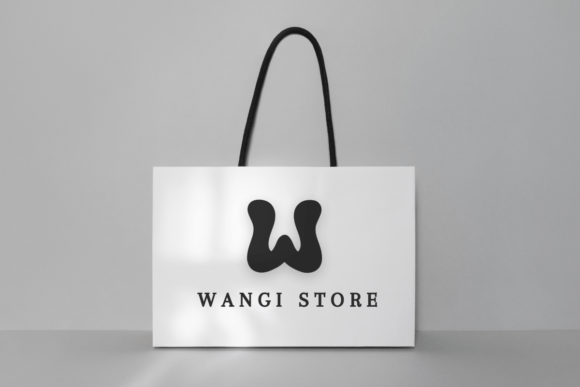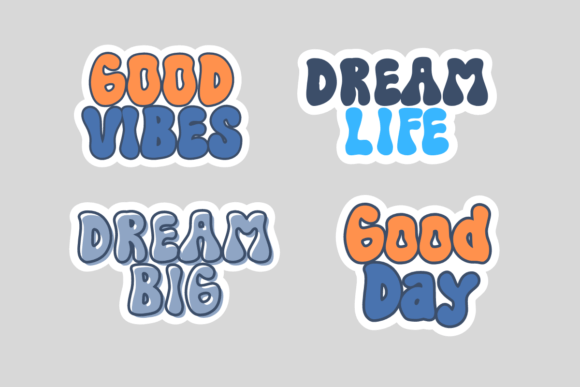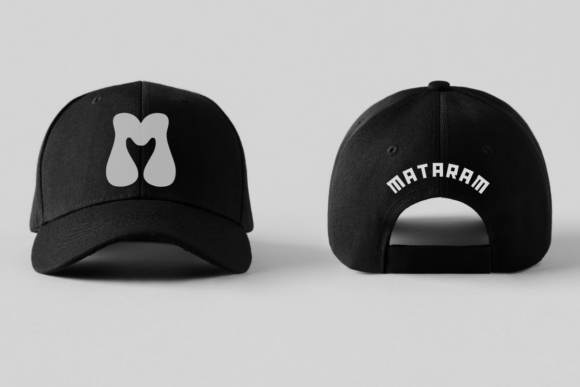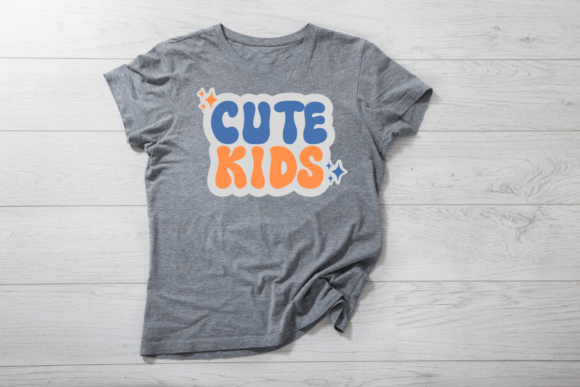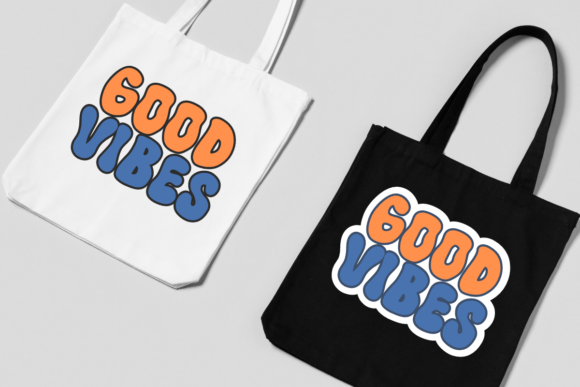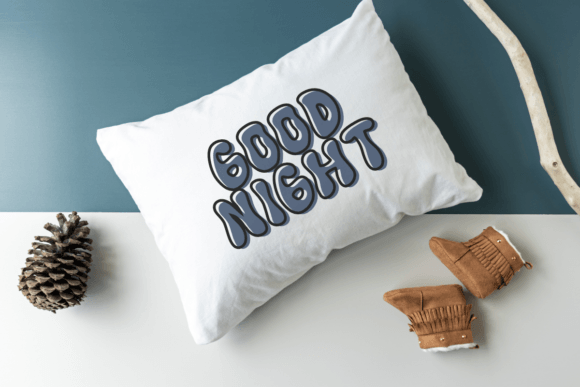
Discover the Charm of Crossock Font: A Retro Vintage Aesthetic for Your Creative Projects
Are you a designer or crafter looking for a font that can add a touch of nostalgia and retro vintage charm to your creative projects? Look no further than Crossock Font. This expertly designed font is sure to become a true favorite, delivering a great retro vintage aesthetic that’s perfect for a wide range of applications.
The Story Behind Crossock Font
Crossock Font is a carefully crafted font that’s designed to evoke the feeling of a bygone era. Its unique design elements and classic style make it the perfect choice for anyone looking to add a touch of nostalgia to their work. Whether you’re creating a logo, branding materials, or craft projects, Crossock Font is the perfect choice.
What Makes Crossock Font So Special?
So, what sets Crossock Font apart from other fonts on the market? Here are just a few of the key features that make it so special:
- Retro Vintage Aesthetic: Crossock Font has a distinctive retro vintage aesthetic that’s perfect for anyone looking to add a touch of nostalgia to their work.
- Expertly Designed: This font has been carefully crafted to deliver a high level of quality and consistency, making it perfect for use in a wide range of applications.
- Highly Versatile: Crossock Font is highly versatile, making it perfect for use in logos, branding materials, craft projects, and more.
- Easy to Read: Despite its vintage aesthetic, Crossock Font is highly legible and easy to read, making it perfect for use in body text and other applications where readability is key.
How to Use Crossock Font in Your Creative Projects
Crossock Font is a highly versatile font that can be used in a wide range of creative projects. Here are just a few ideas to get you started:
- Logo Design: Use Crossock Font to create a logo that has a retro vintage aesthetic.
- Branding Materials: Use Crossock Font to create branding materials such as business cards, brochures, and flyers.
- Craft Projects: Use Crossock Font to add a touch of nostalgia to your craft projects, such as scrapbooking, card making, and more.
- Digital Projects: Use Crossock Font in digital projects such as social media graphics, blog posts, and more.
Tips for Getting the Most Out of Crossock Font
Here are a few tips for getting the most out of Crossock Font:
- Experiment with Different Sizes: Crossock Font looks great in a variety of sizes, so don’t be afraid to experiment to find the perfect size for your project.
- Pair with Other Fonts: Crossock Font pairs well with other fonts, so try pairing it with a sans-serif font for a contrasting look.
- Use in Combination with Images: Crossock Font looks great in combination with images, so try using it to add a touch of nostalgia to your graphics.
| Font Name | Crossock Font |
| Author | Minimalist Eyes |
Crossock Font is a unique and highly versatile font that’s perfect for anyone looking to add a touch of nostalgia and retro vintage charm to their creative projects. With its expertly designed aesthetic and highly legible design, Crossock Font is sure to become a true favorite among designers and crafters. So why wait? Download Crossock Font today and start taking your creative projects to the next level!